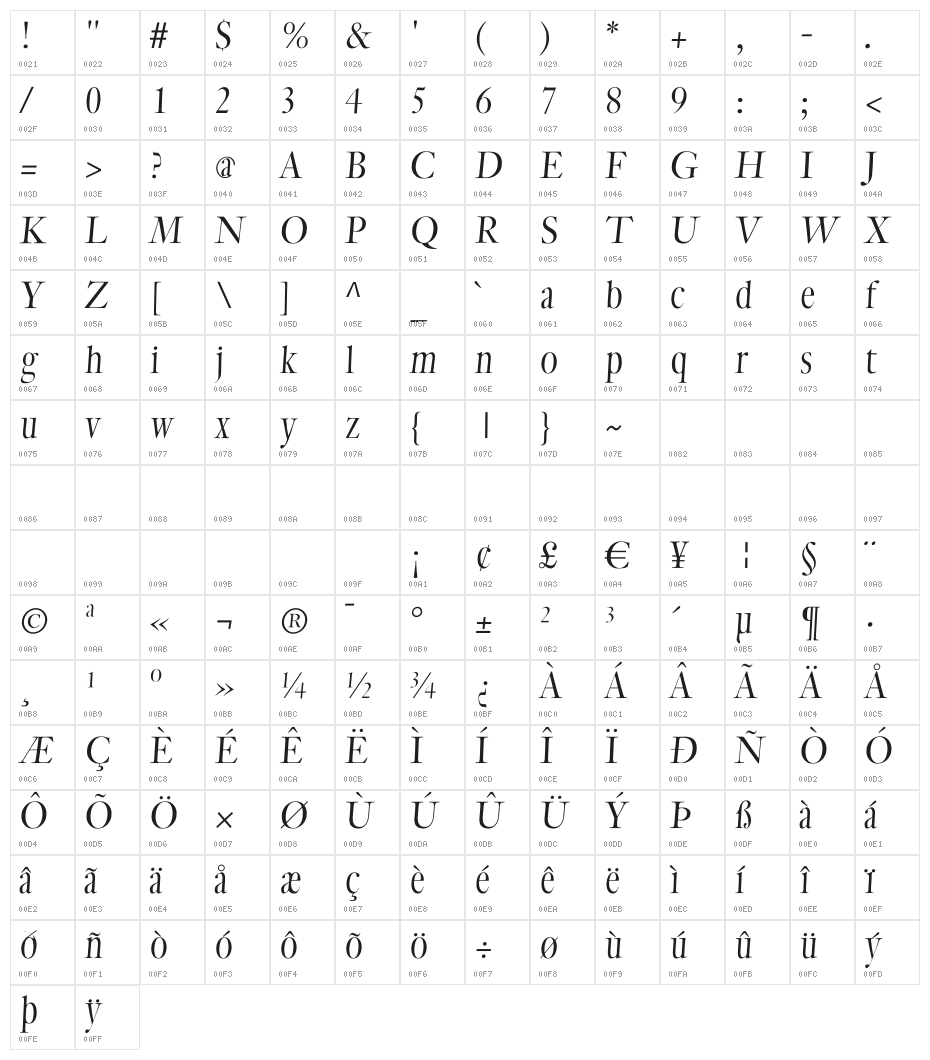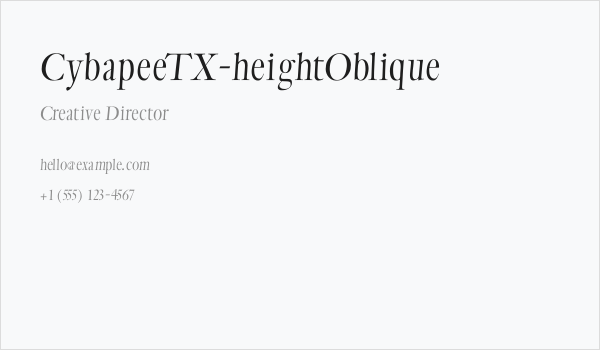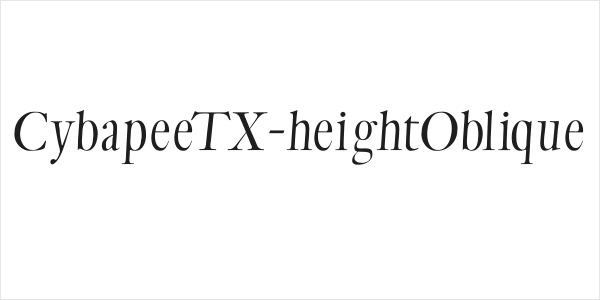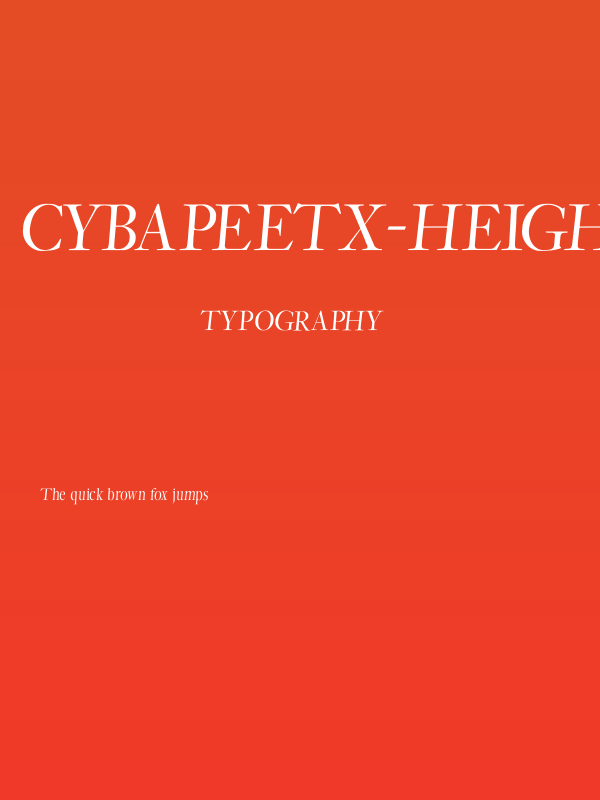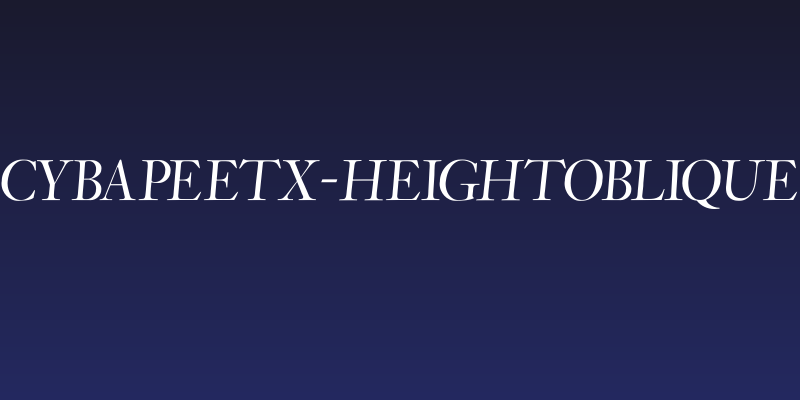
CybapeeTX-heightOblique Font
CybapeeTX-heightOblique Description
This font features an elegant and sophisticated design with a distinct oblique style, giving it a dynamic and forward-leaning appearance. The characters are finely crafted with a high contrast between thick and thin strokes, adding a touch of refinement and class. The serifs are sharp and pronounced, enhancing the overall classic aesthetic. The uppercase letters stand tall and commanding, while the lowercase letters maintain a graceful flow. The numerals are well-proportioned, and the special characters are designed with a consistent style, making this font versatile for various applications.
| Use Case | Headlines, Logos, Editorial design |
| Proposed Projects | Ideal for luxury branding, editorial design, elegant invitations, and sophisticated advertising campaigns. |